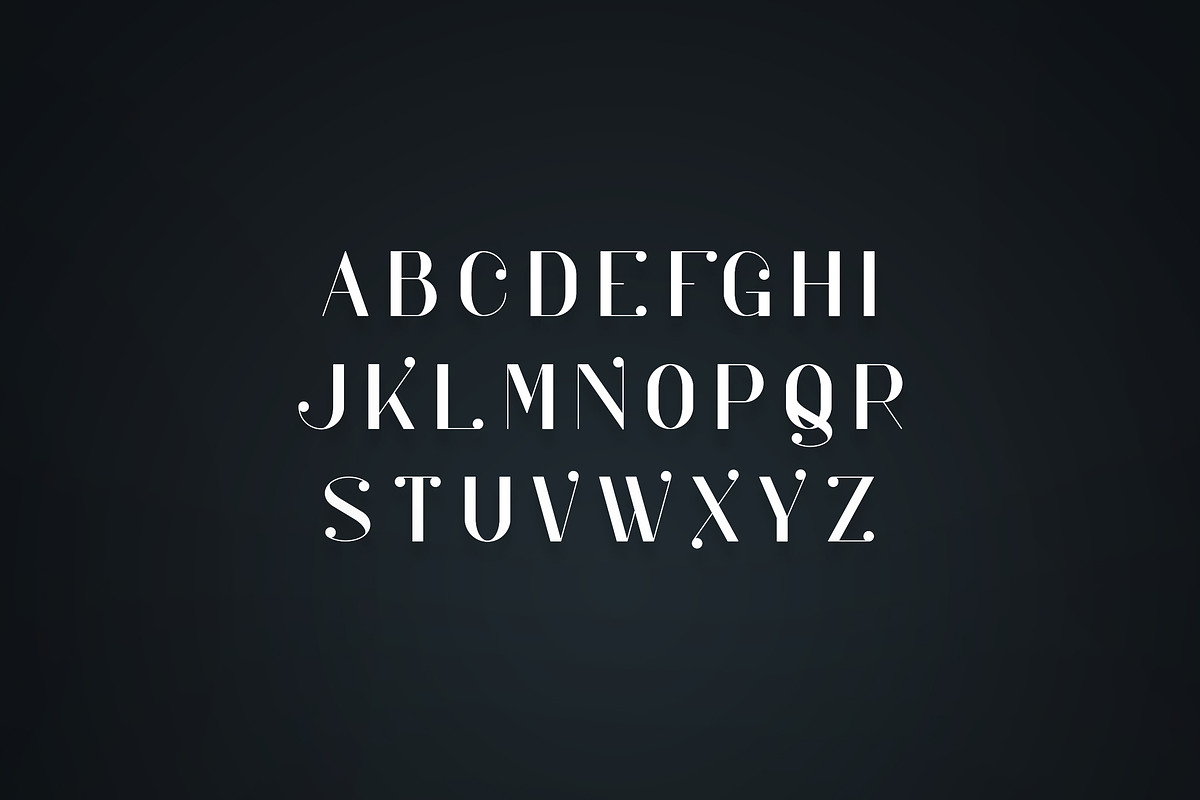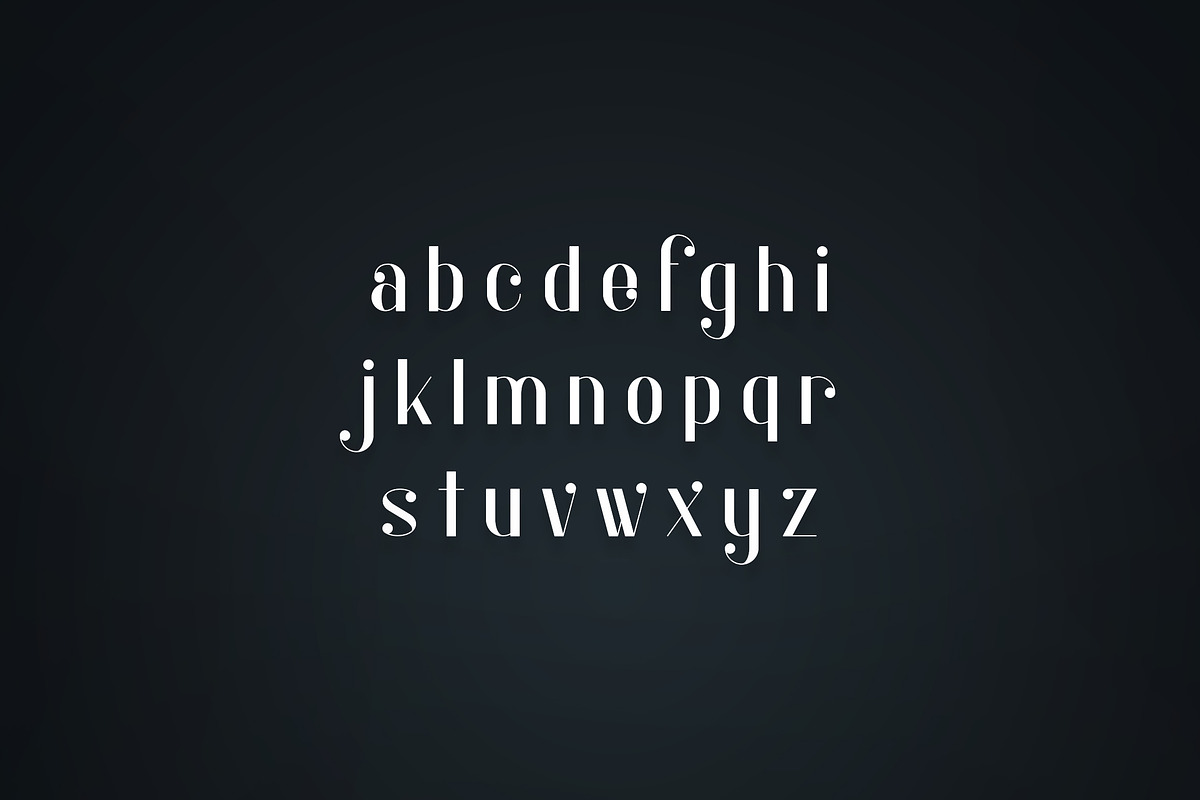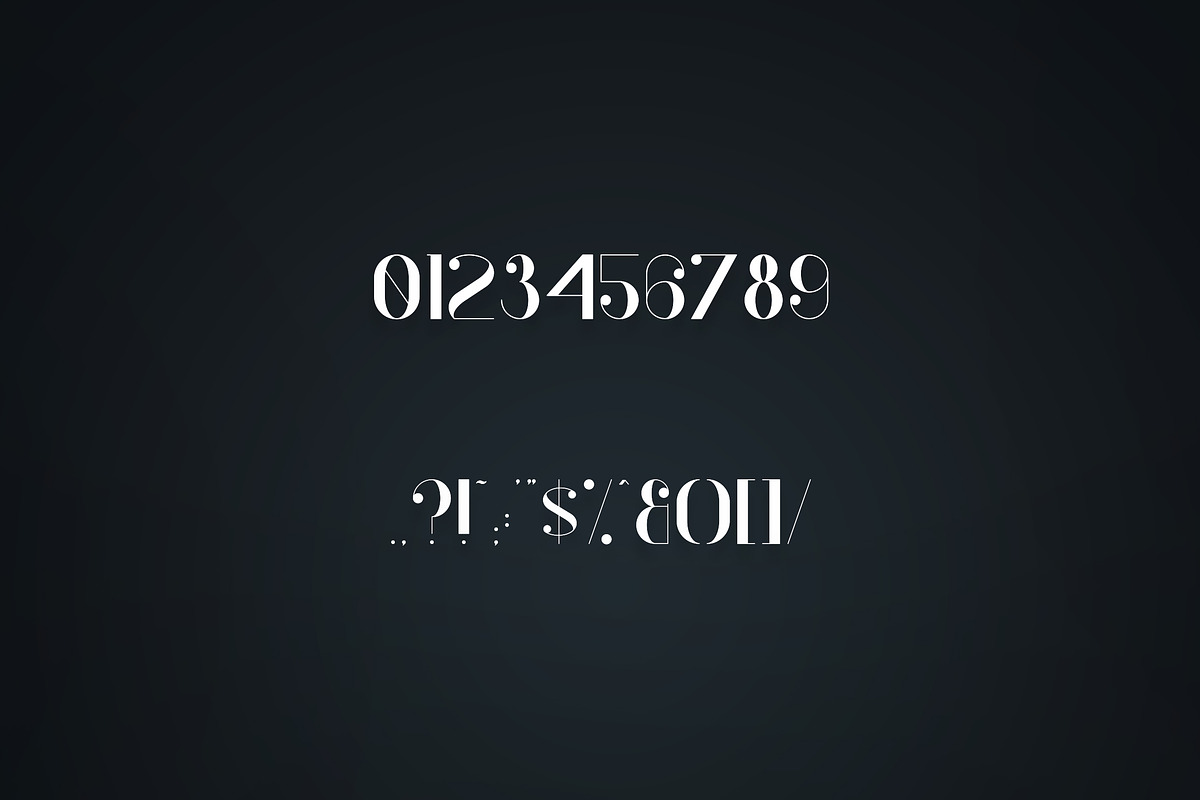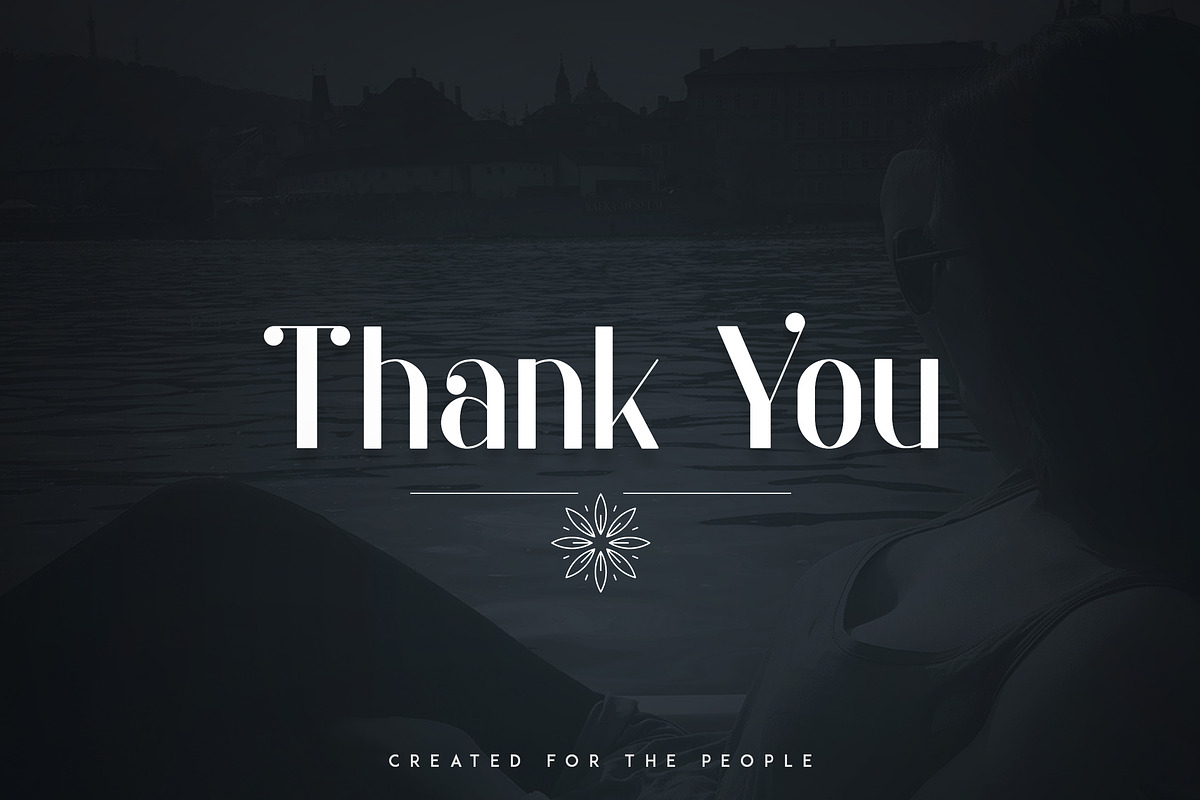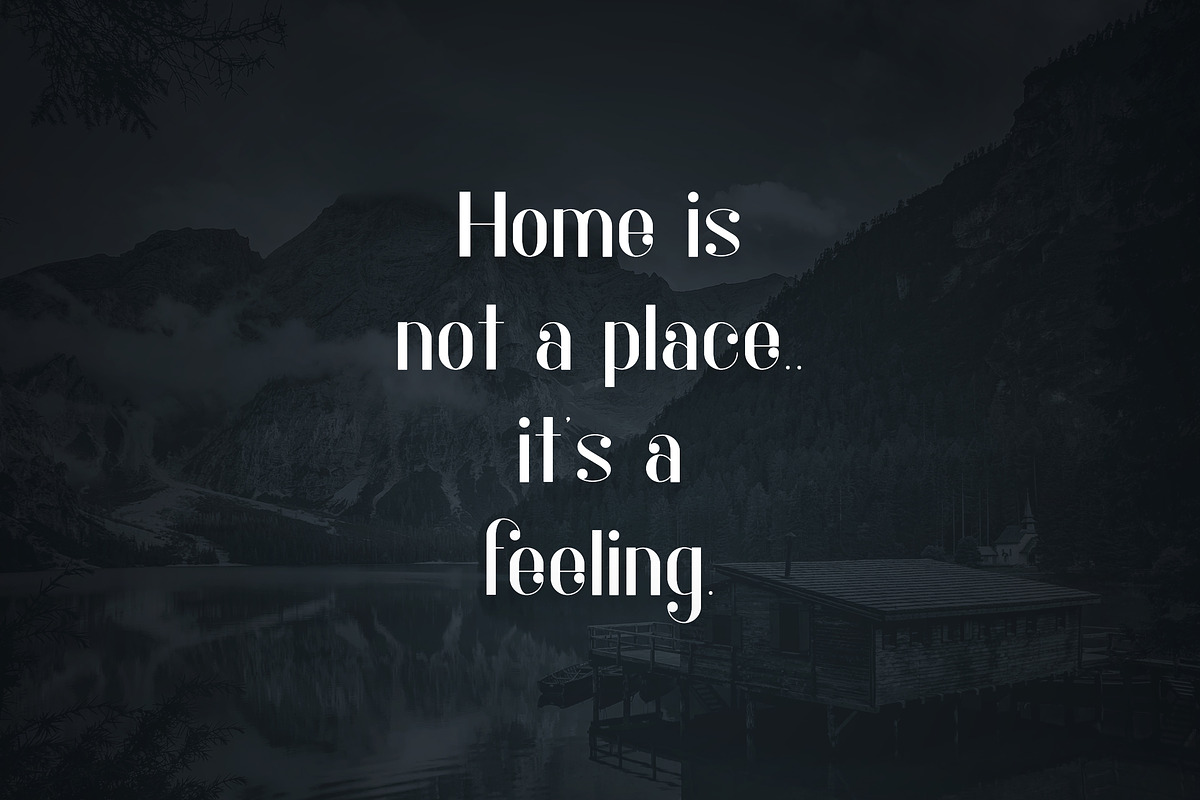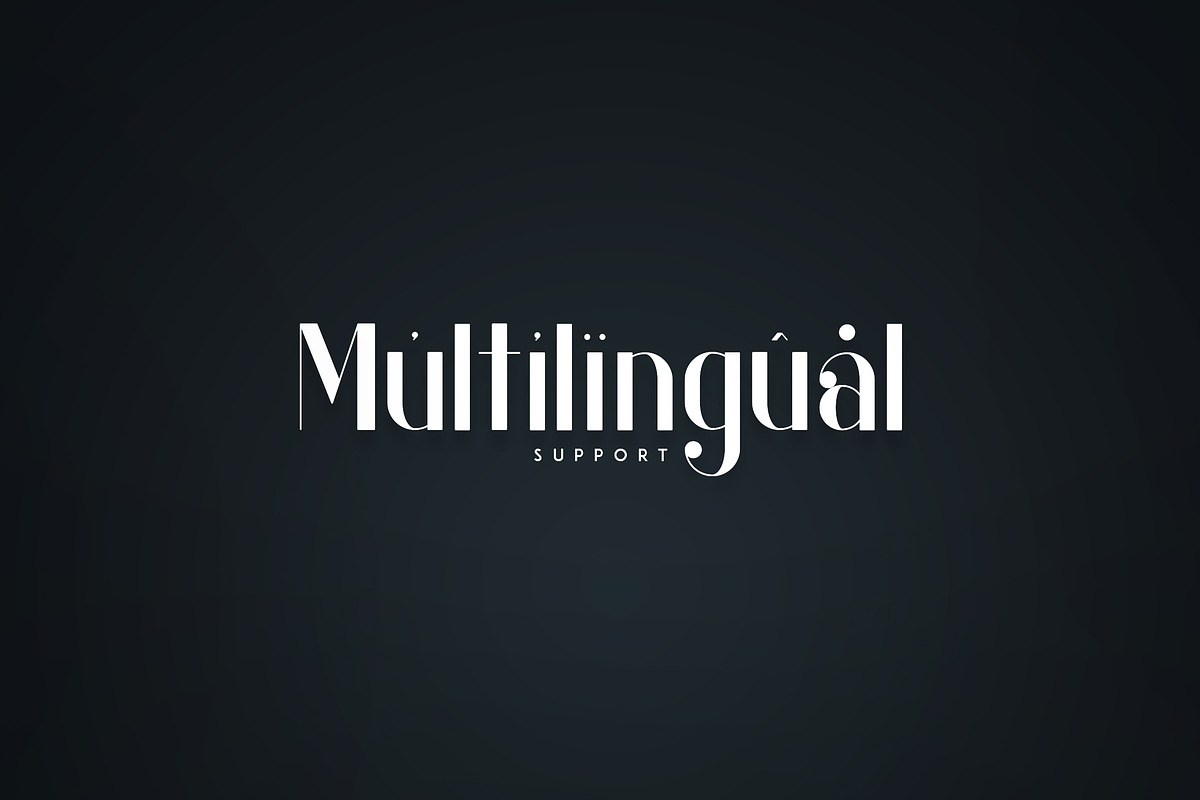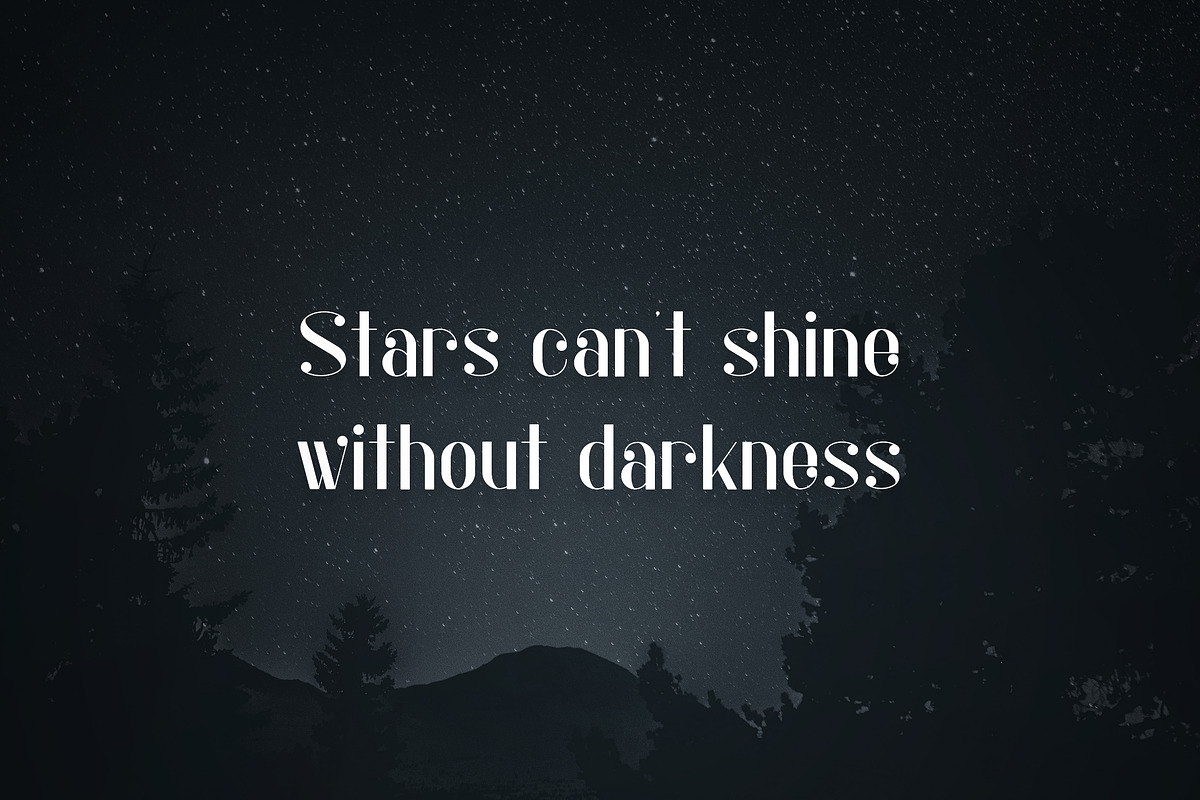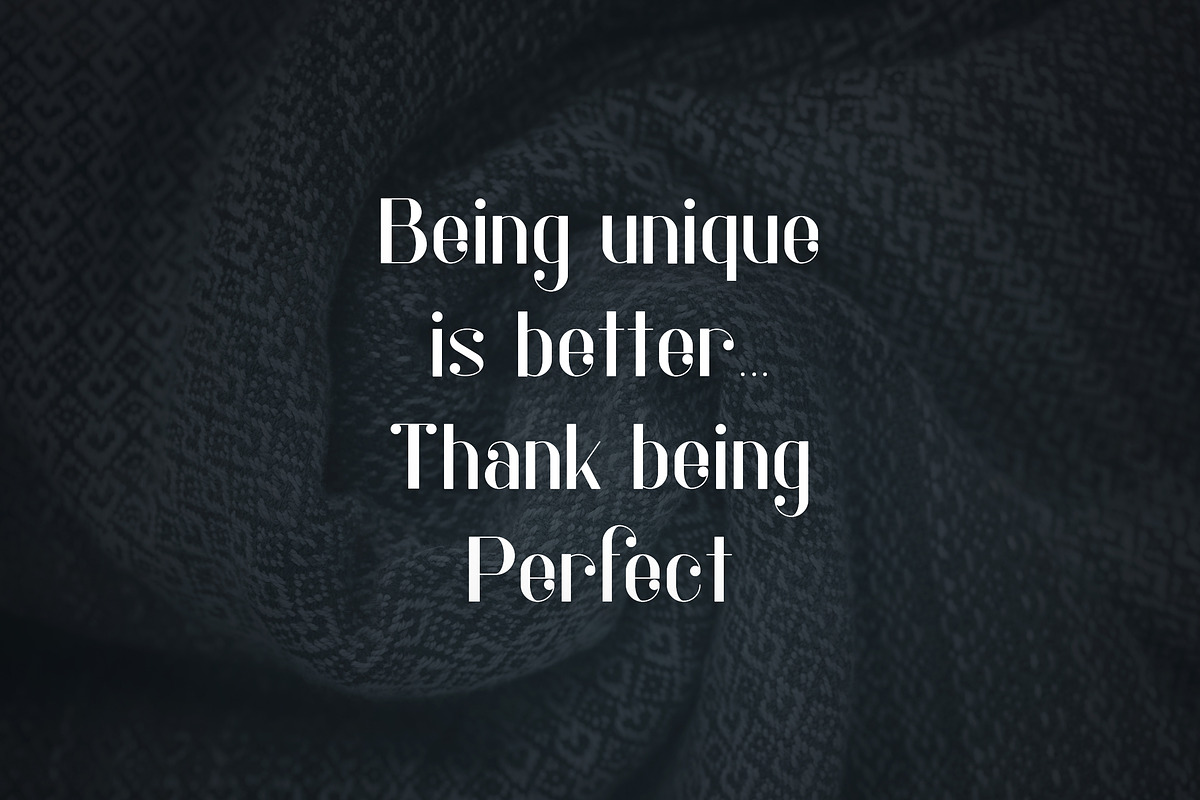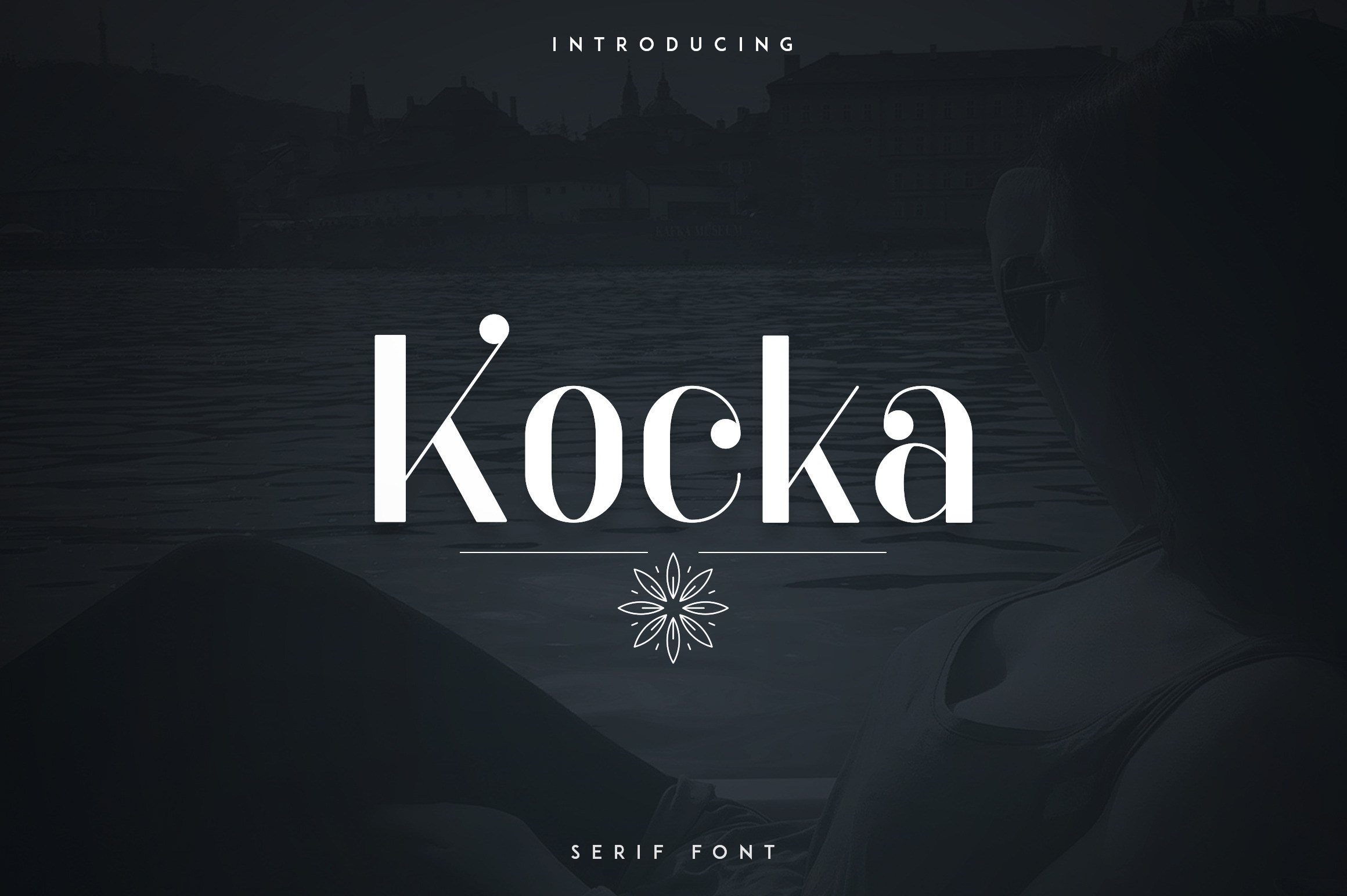
Kocka is modern display font with multilingual support. It's a very versatile font that works great in large and small sizes.
Kocka is perfect for branding projects, home-ware designs, product packaging, wedding invitations, magazine headers - or simply as a stylish text overlay to any background image.
- Uppercase,lowercase,numeral,punctuation & Symbol